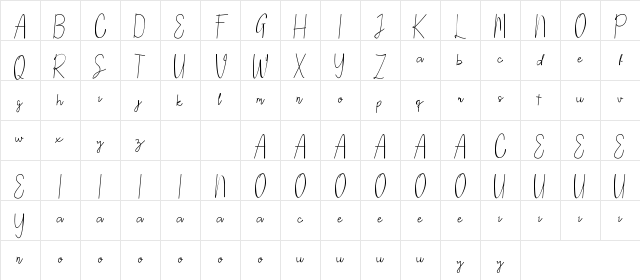
NORTH MOUNT DEMO Script Regular Free Font
NORTH MOUNT DEMO Script Regular
Foundry: Edric Studio
Designer: Aghnia - M Deyan
Design Context for NORTH MOUNT DEMO Script
NORTH MOUNT DEMO Script flows with the natural rhythm of handwritten lettering, making it ideal for designs that call for warmth and personal expression.
Font Pairing: Combine NORTH MOUNT DEMO Script with a simple geometric sans for maximum contrast - the tension between flowing curves and clean structure is a classic typographic pairing.